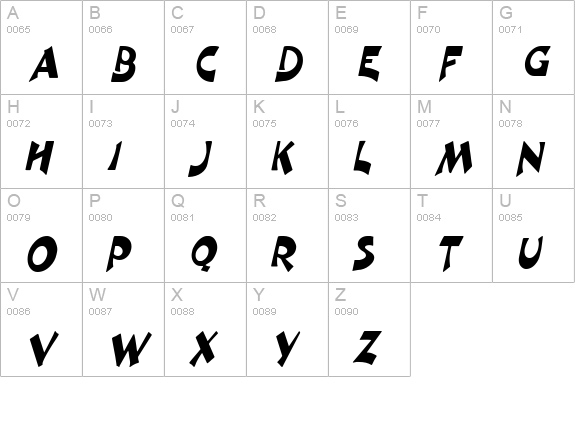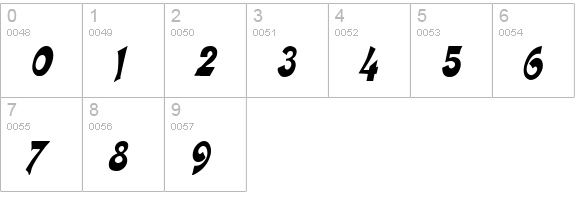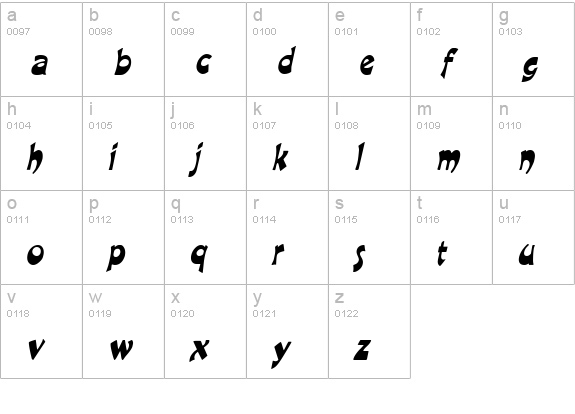
Crane-Condensed Italic Font Details
Crane-Condensed Italic is a distinctive, condensed-width, italic variant in the Crane typeface family \xE2\x80\x94 well suited to design and typography projects.
Introducing Crane-Condensed Italic font, a sleek and modern typeface that exudes elegance and sophistication. This condensed italic variation of the Crane font family is perfect for adding a touch of style to your designs. Its slanted, cursive-like appearance gives a dynamic and flowing feel to any text. With its clean lines and subtle curves, Crane-Condensed Italic font is versatile and can be used for a wide range of design projects, from branding to editorial design. Whether you're looking to create a high-end look or add a touch of flair to your work, this font has got you covered. The best part? Crane-Condensed Italic font is available for free download at FontsMarket.com. Simply head over to the website and grab your copy today to elevate your design projects with this stunning typeface. Don't miss out on the opportunity to enhance your work with this beautiful and freely available font.